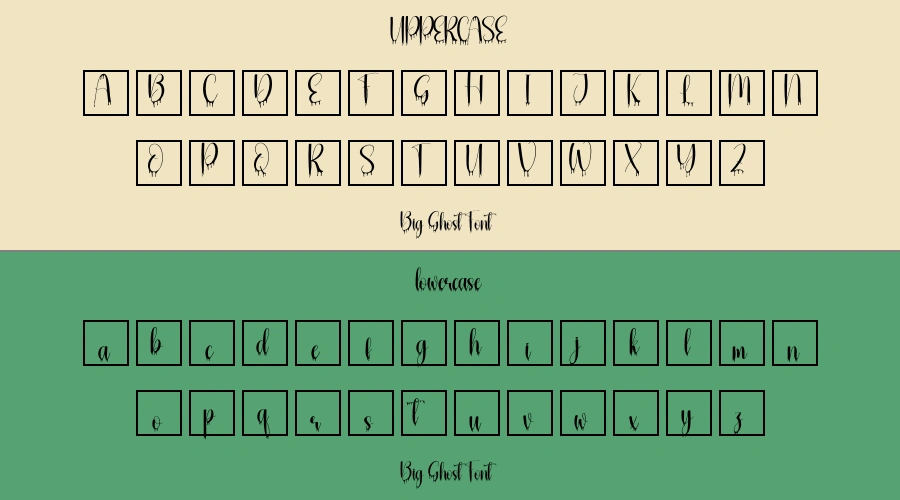
About Big Ghost Font
Big Ghost Font stands out for its distinctive combination of ink traps and durability. Ideal for advertising headers, it provides the adaptability and manufacturing quality that professional projects demand. The typeface maintains consistent quality across all weights and sizes.
Key features include refined contextual forms and practical swash characters, enhancing typographic expression. In hero imagery applications, Big Ghost Font demonstrates exceptional scanning accuracy. The x-height and cultural relevance contribute to its distinctive character and professional appeal.